Vikings are known for their bravery and brutish behavior. The period between 793 and 1066 AD was the Viking age. It represents colonizing, large-scale raiding, trading, and conquest across Europe and North America. Inspired by the Vikings era, Viking fonts are bold and unflinching and provide a unique feel.
To add, these fonts have a tribal feel and picturesque structure that can make any design stand out. If you want to create attractive and mind-blowing designs using beautiful typography, you can consider Viking fonts for the same.
These fonts are ideal for various design projects such as posters, branding, logos, greeting cards, invitations, etc. You can use these fonts for any design project, depending on the requirements. So, look at the best Viking fonts and choose the ones that suit your design needs.
1. Nordica Font
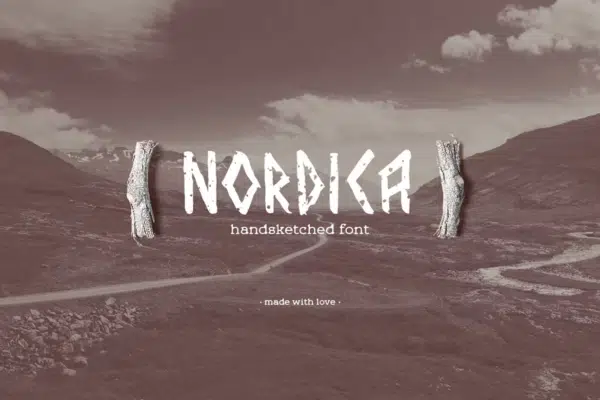
Nordica is a beautifully handcrafted blackletter font that can be used for different designs. It adds a Nordic touch to your design projects. This font is suitable for greeting cards, apparel, logos, invitations, posters, etc. It is an all-caps font and comes with punctuations and numbers. The font is available in OTF and TTF formats.
2. Jotunheim Typeface
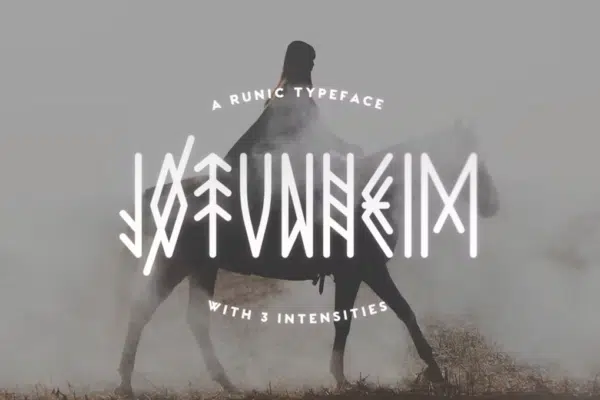
Jotunheim is a unique font inspired by ancient runes. This Viking typeface is available in three versions that allow you to use them for different projects. Version 1 is simple and legible. On the other hand, version 2 is more complex, authentic, and legible. Version 3 has the most intricate style that suits ay design.
Also, you can combine these versions to create different designs. It comes with numbers, uppercase multilingual letters, and punctuations. Furthermore, some letters of this font come with mirrored versions so that you can toggle them with caps lock.
3. Noatun Typeface
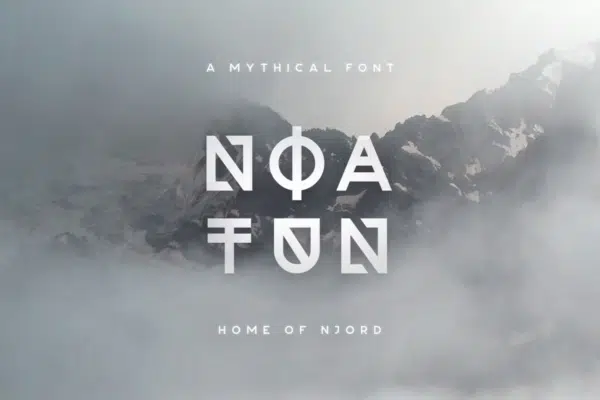
Noatun is a stylish font with a strange look. It comes in two versions so that you can combine them to create stunning designs. This font is excellent for logos, titles, short quotes, headlines, etc. The font also has multilingual support and includes uppercase letters, punctuations, and numbers.
4. Lexaviers Decorative Font
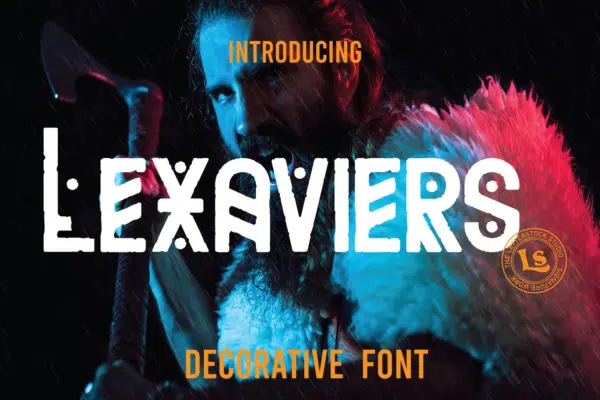
Lexaviers is a decorative font inspired by movie poster designs. The font is handcrafted and provides a natural feel. It is great for creating brand identity because of its handmade feeling.
This font comes with several OpenType features with a set of 214 characters that lets you create outstanding designs.
It is ideal for labels, logos, T-shirts, packaging, advertising, invitations, etc. Lexaviers comes in OTF, TTF, and WOFF formats. This font supports multiple languages, so it can be used in different countries.
5. Scourge Typeface
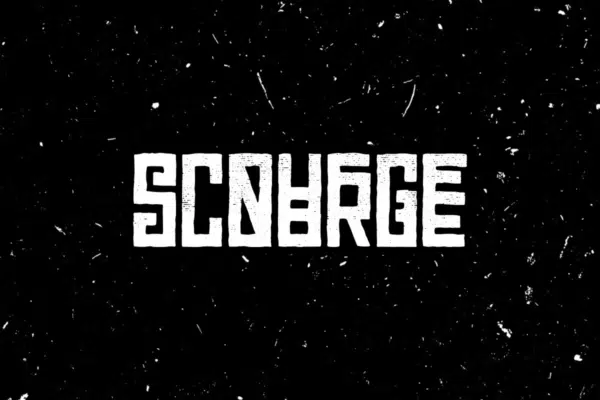
Scourge is a unique font with a textured look. It comes with numbers, punctuations, and uppercase multilingual characters. This font has excellent characteristics and suits different design projects. You can use this font for a wide range of design projects, depending on your design requirements.
6. Paraoh – Sacred Font
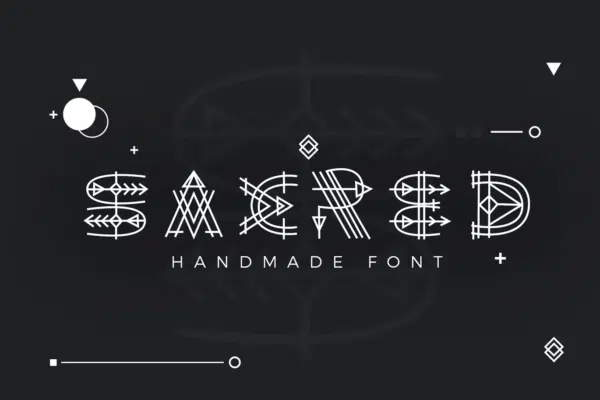
Paraoh is a Viking font with a stylish handwritten feel. This stunning font is ideal for headers, logos, titles, print designs, and other creative projects. The sacred font is great for creating incredible artwork. The font is available in TTF and OTF formats and is compatible with many design programs.
7. Mjolnir – Nordic Tribal Font
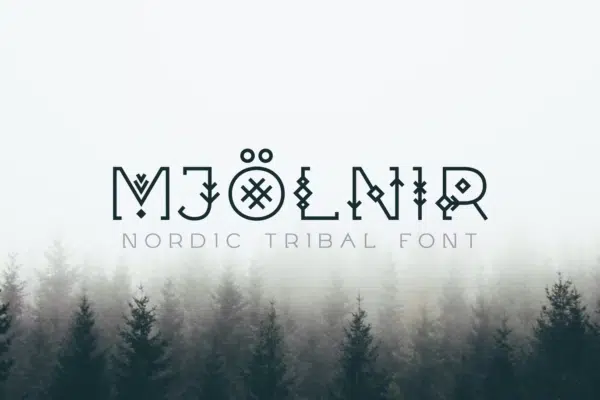
Mjolnir is a tribal font inspired by Nordic styles and the Viking era. This Viking font is ideal for titles, logos, posters, headlines, branding, packaging, etc. There are uppercase & lowercase letters, multilingual support, and special glyphs included in the package. You will get this font in TTF, OTF, and WOFF file formats.
8. Old North
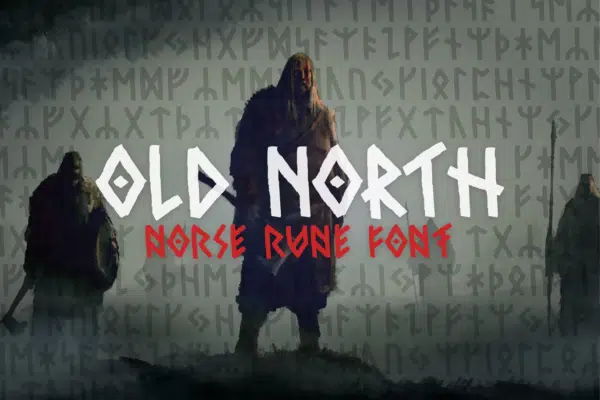
The Old North font is inspired by Norse Rune, which gives a Viking look. The font has support for many Latin characters and comes in two different styles. It comes with uppercase and lowercase letters that you can use for various design projects.
9. Gareon Font
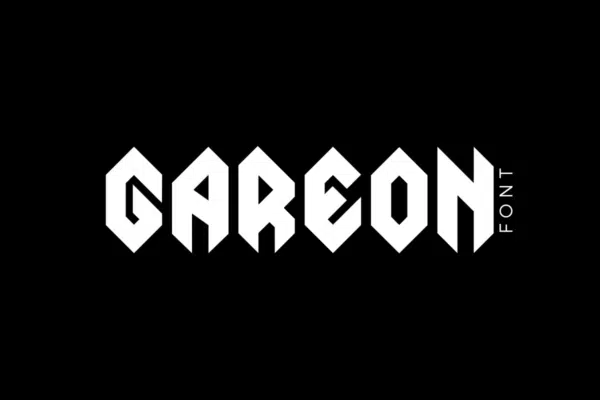
Gareon is a good-looking font with a gothic style and ancient magic myths. The font is the best option for headlines and texts. You will get this font in TTF, OTF, and WOFF formats, so you can use it in different design projects with no hassle.